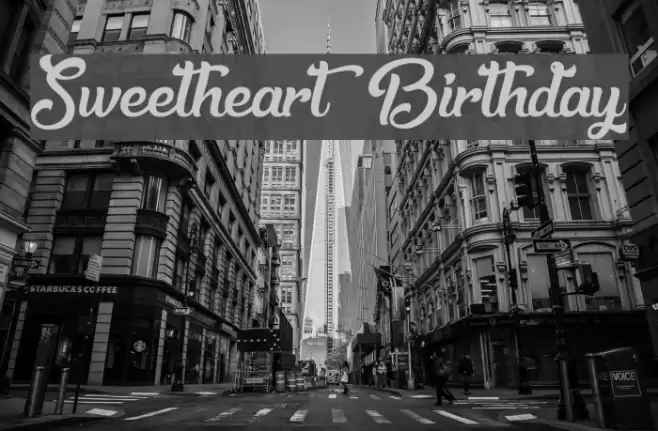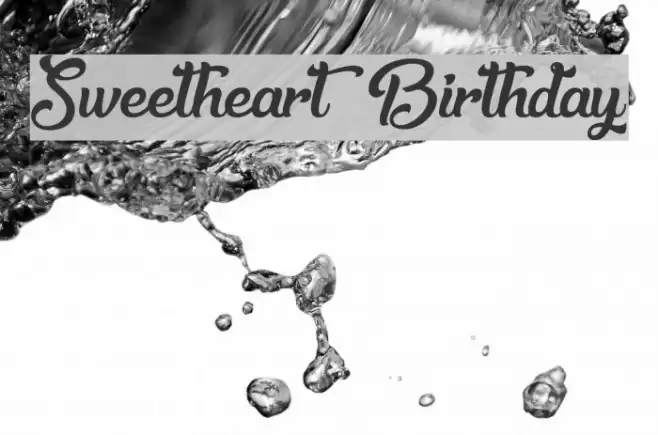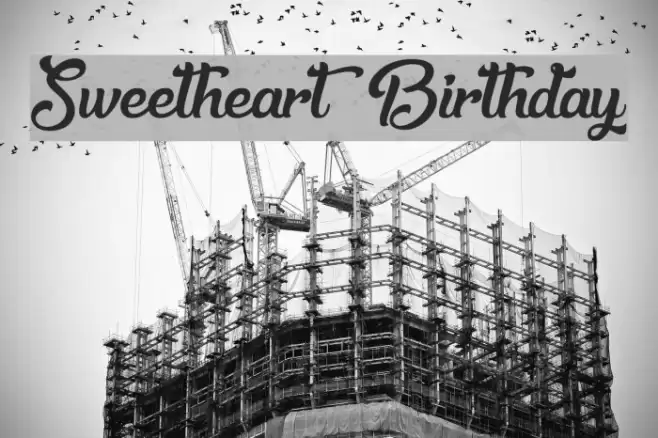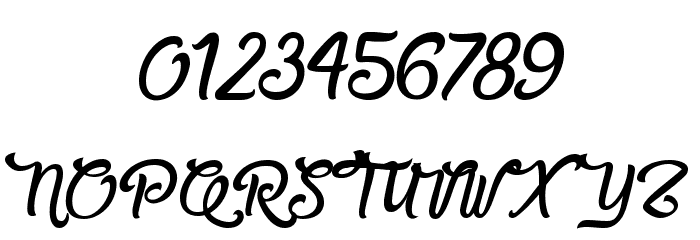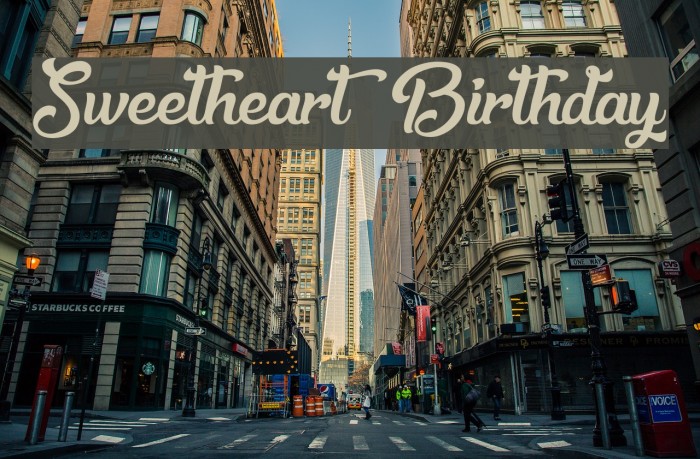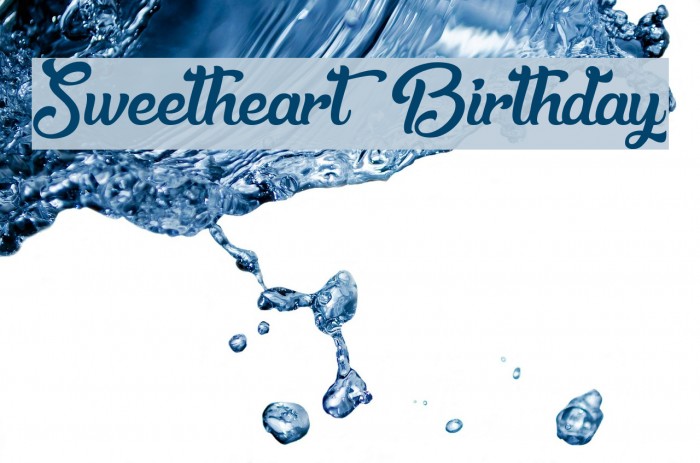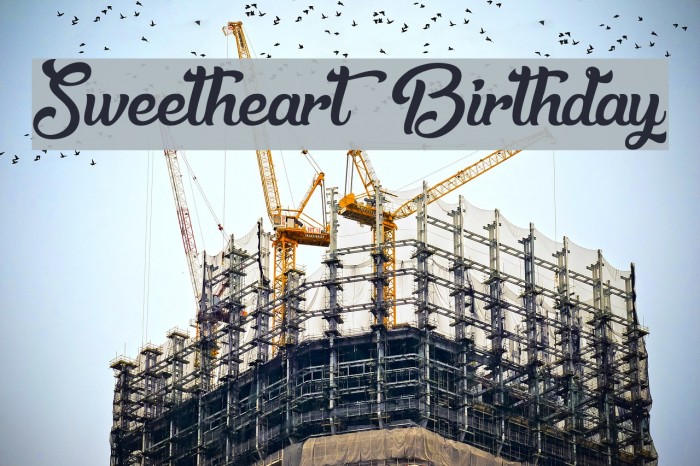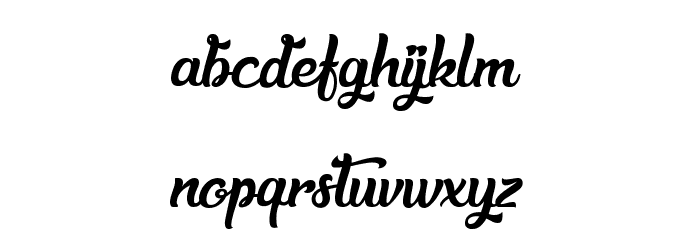
Sweetheart Birthday Font
Sweetheart Birthday Description
This font features a playful and elegant script style, characterized by its flowing, cursive letters that exude a sense of charm and sophistication. The uppercase letters are bold and slightly exaggerated, with decorative flourishes that add a whimsical touch. The lowercase letters maintain a consistent flow, with smooth connections between each character, enhancing readability while retaining a stylish flair. The numerals are designed to match the overall aesthetic, with a slight slant and rounded edges. Special characters are seamlessly integrated, maintaining the font's cohesive look. This font is perfect for projects that require a personal, handwritten feel, such as invitations, greeting cards, and branding materials.
A playful and elegant script font with flowing, cursive letters and decorative flourishes from Uncategorized fonts.
- Proposed Projects: Ideal for invitations, greeting cards, branding, and any project needing a personal touch.
- Use Case: Headlines, Logos, Invitations